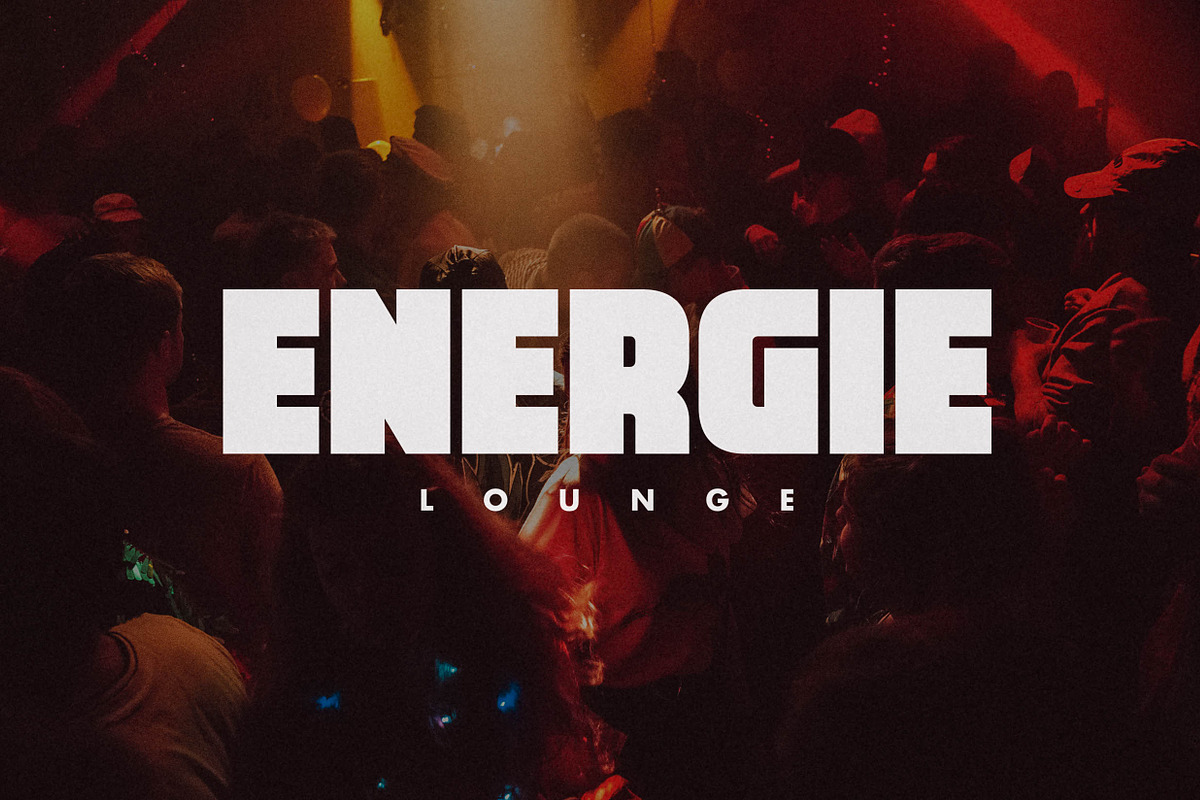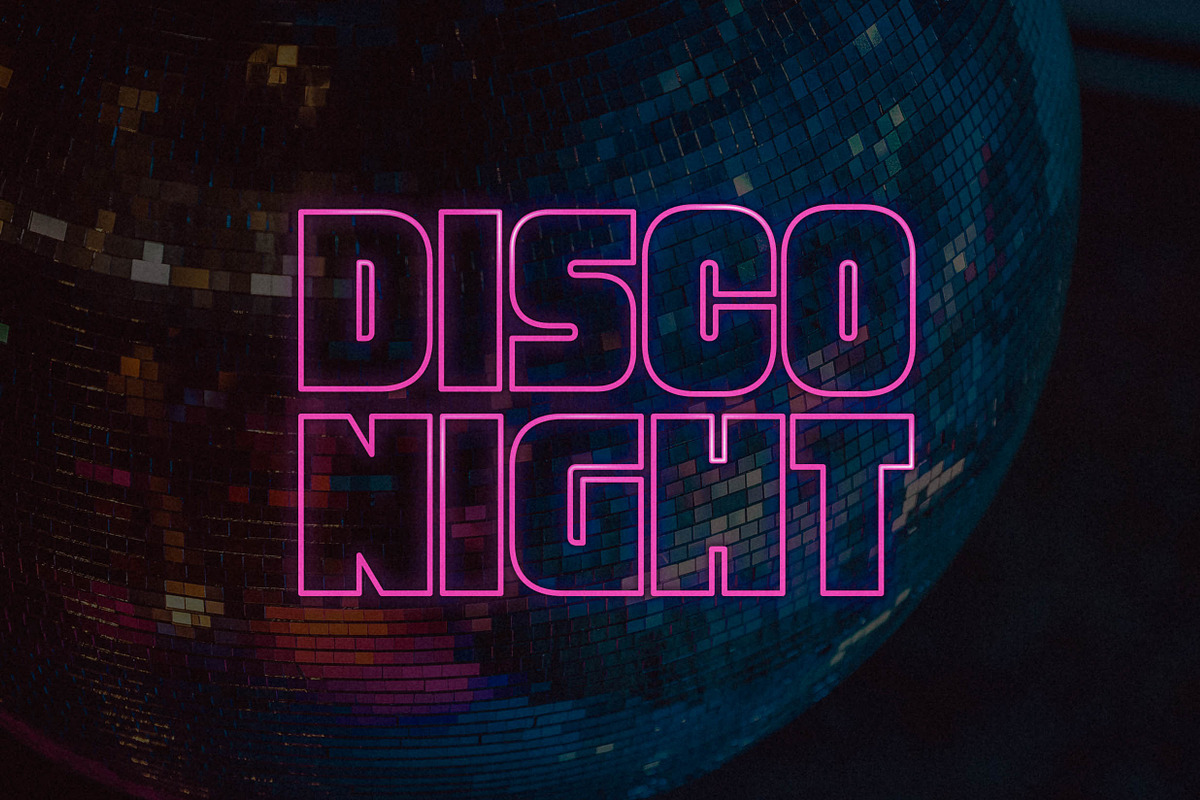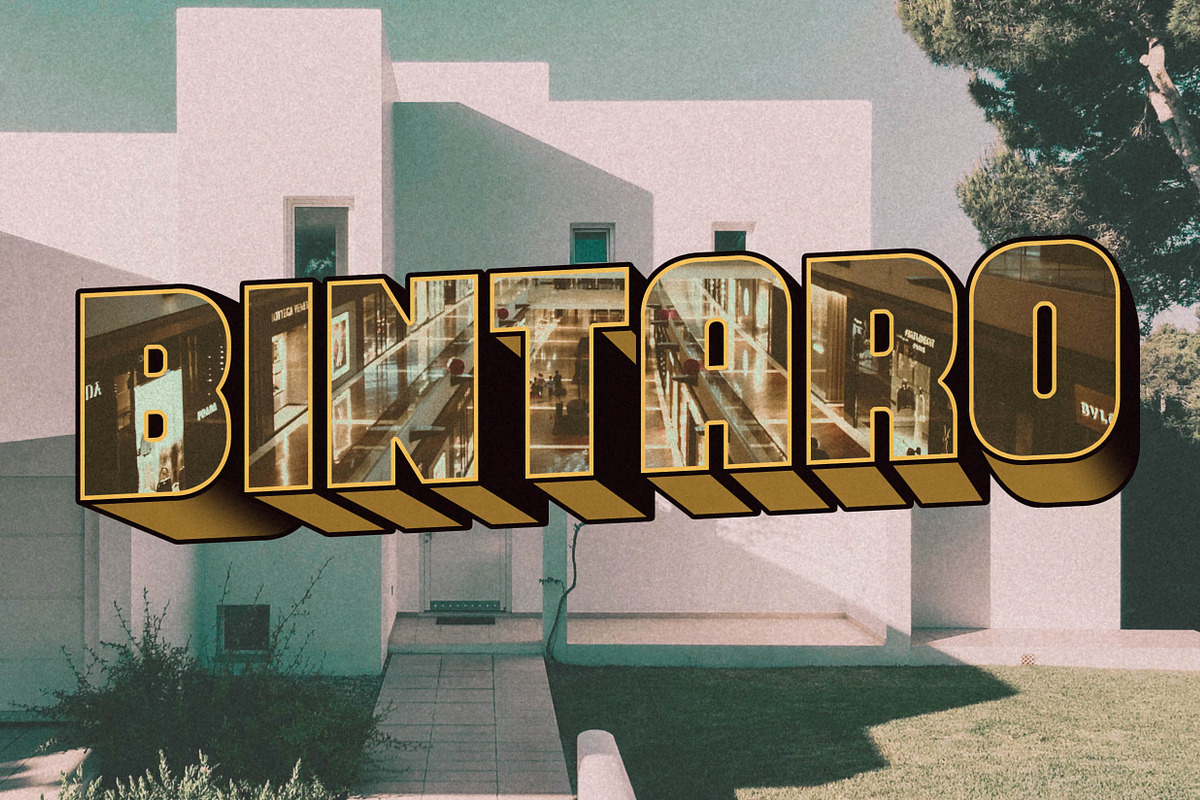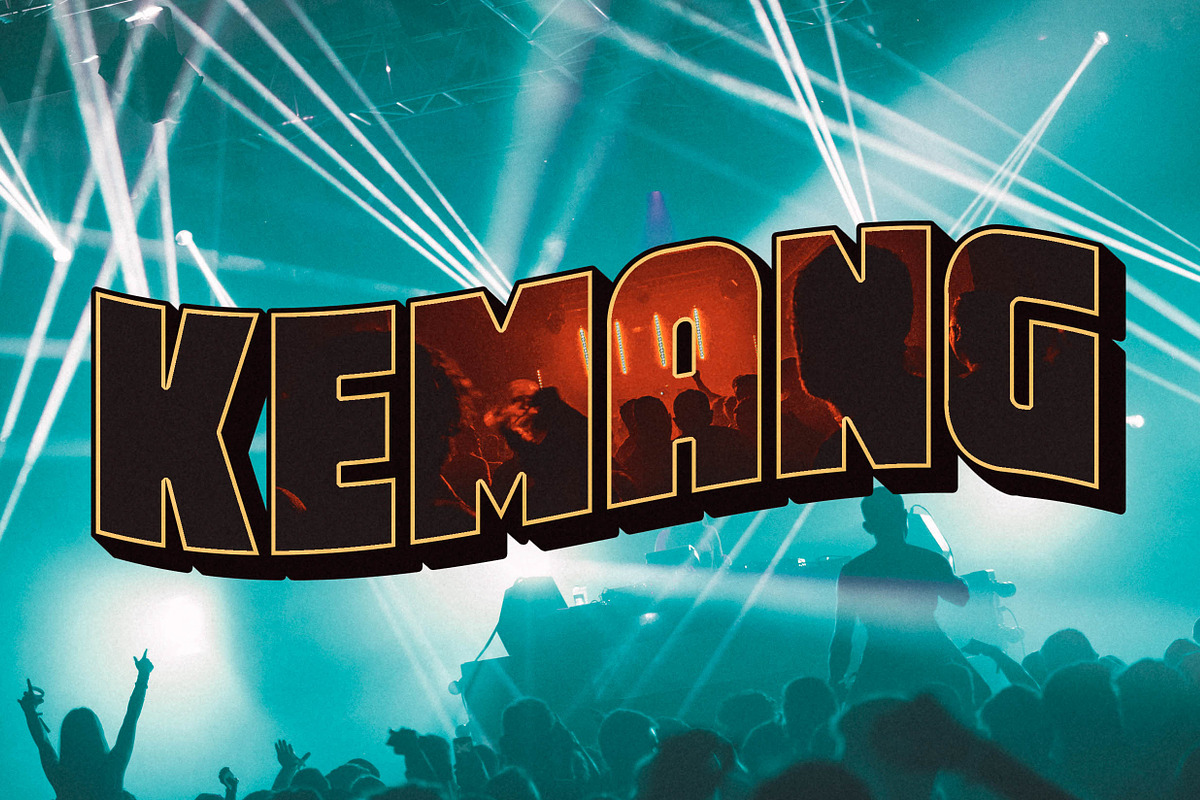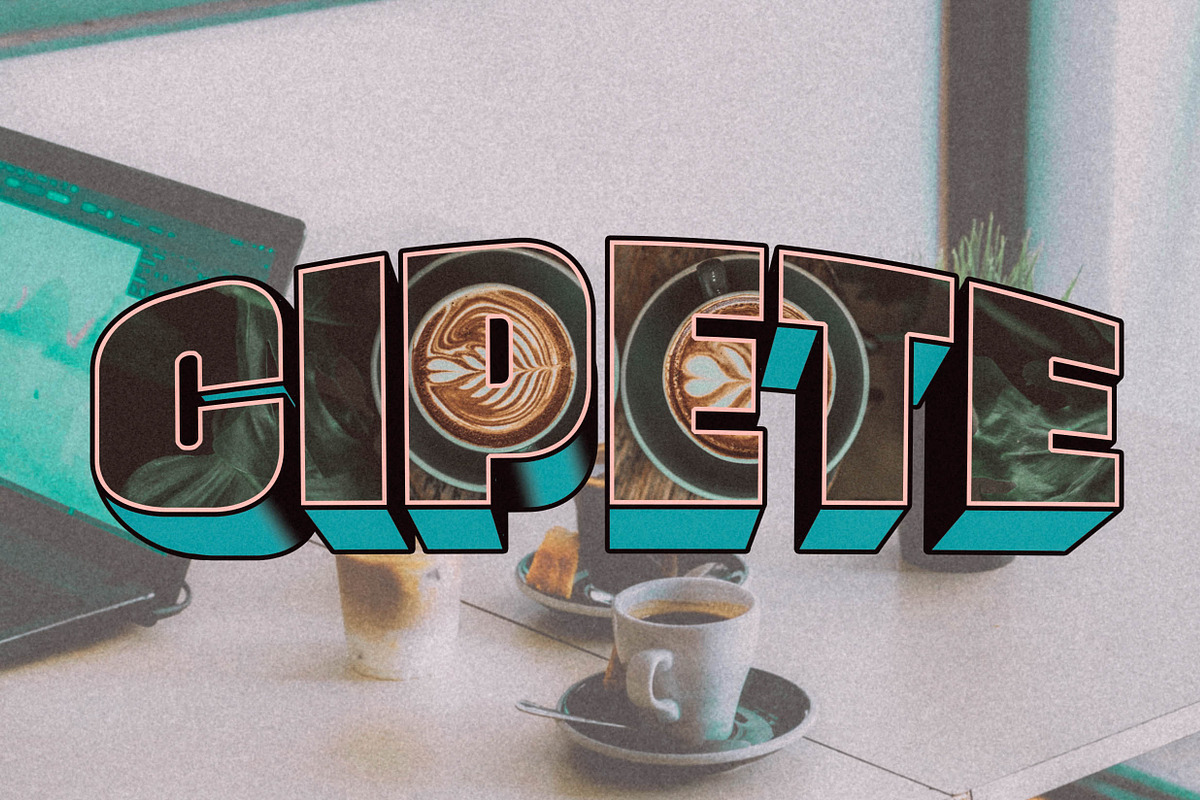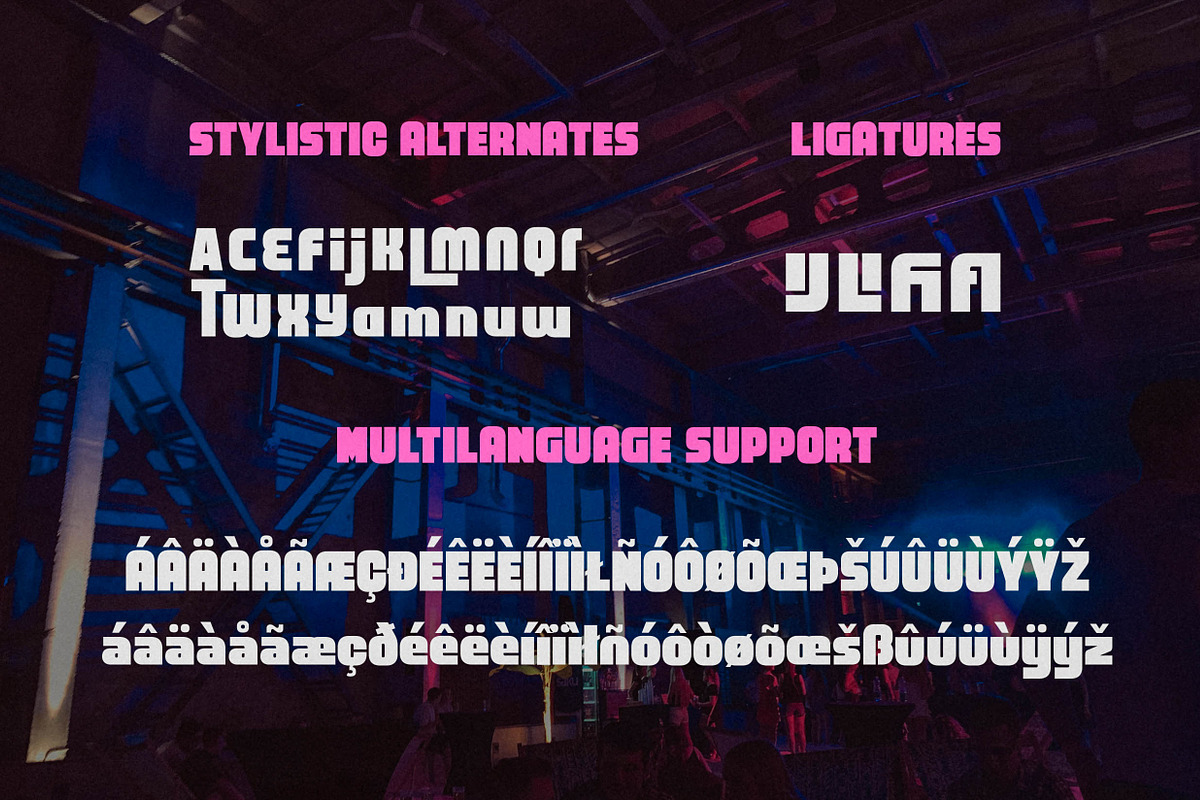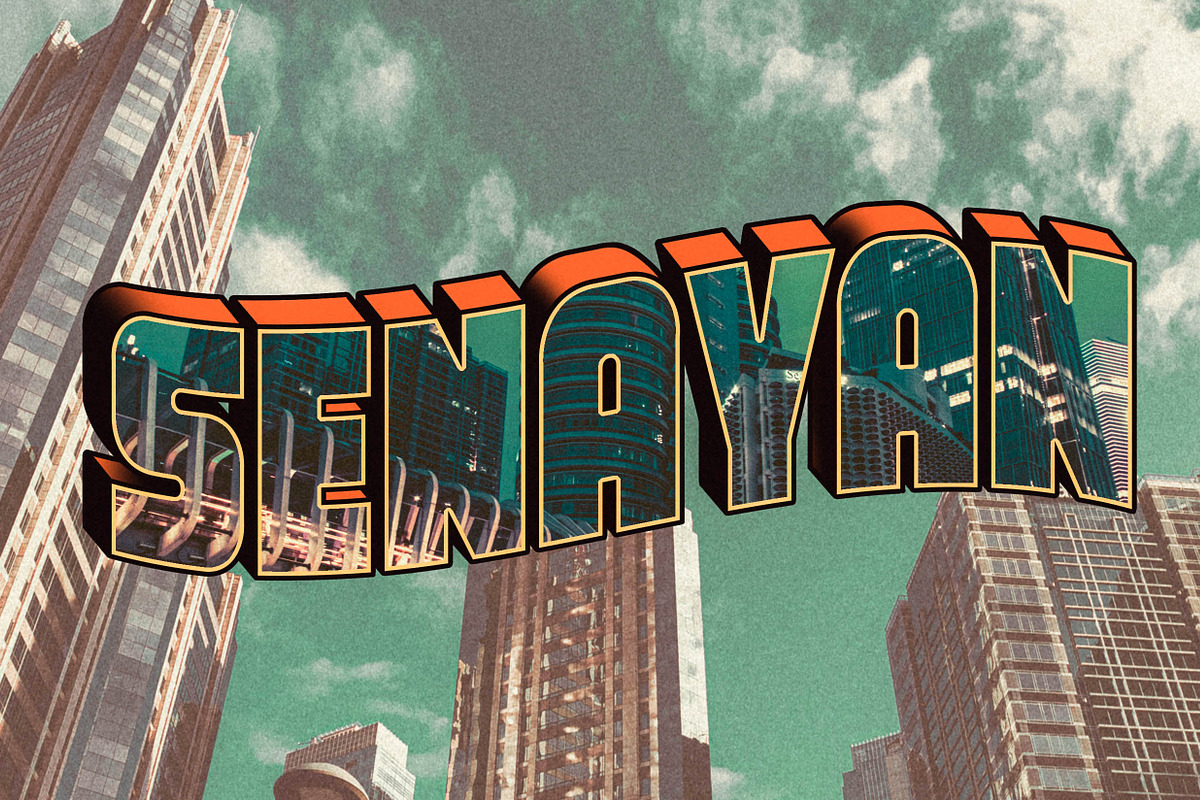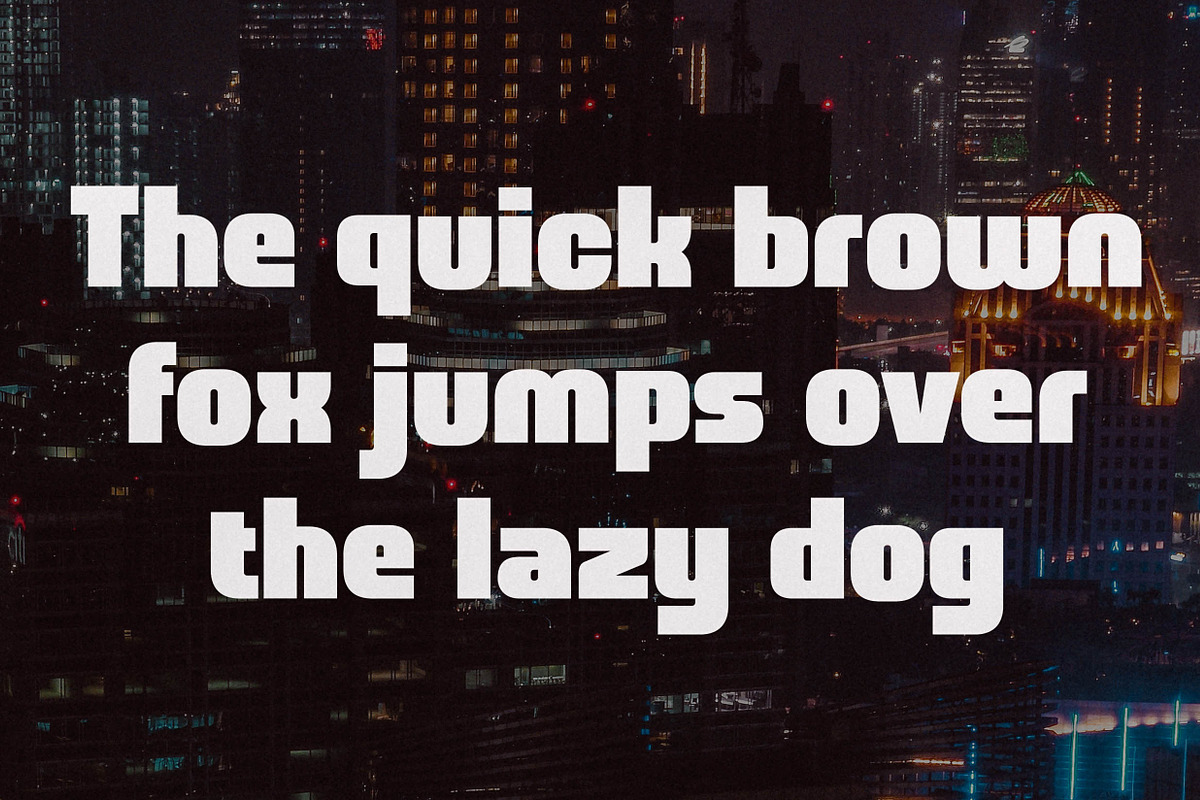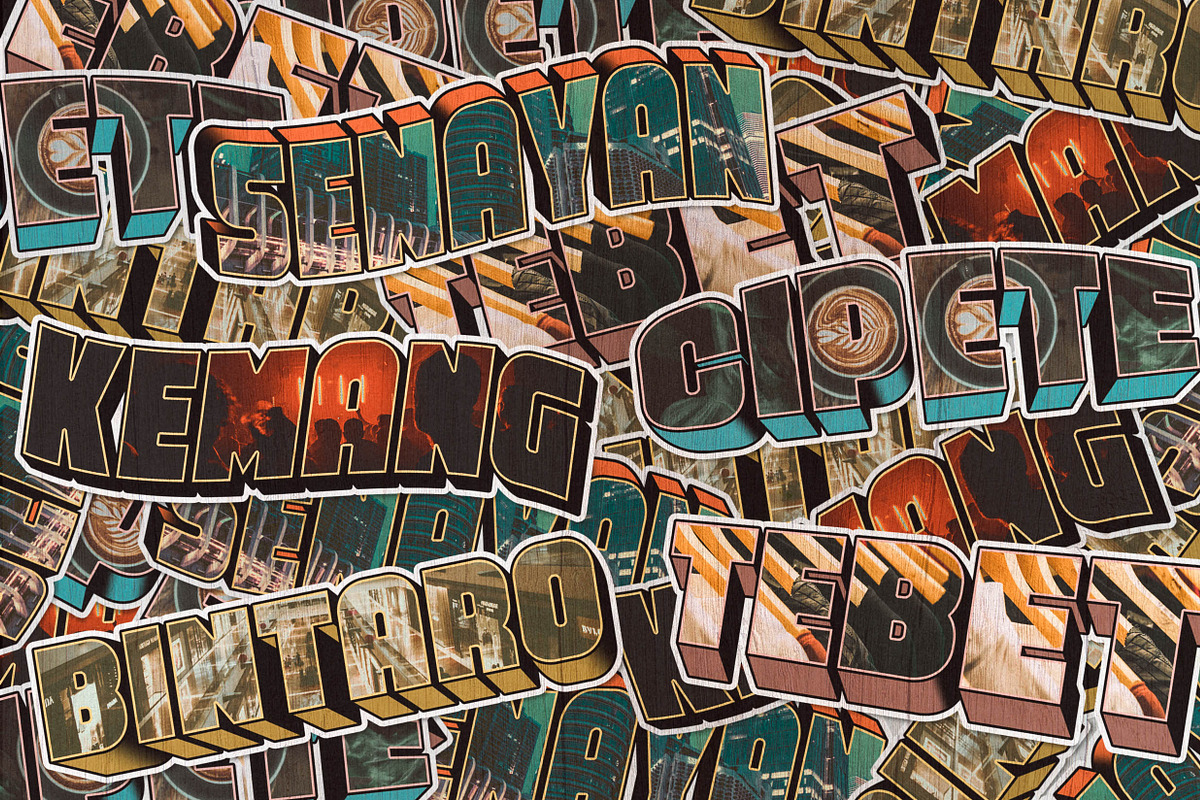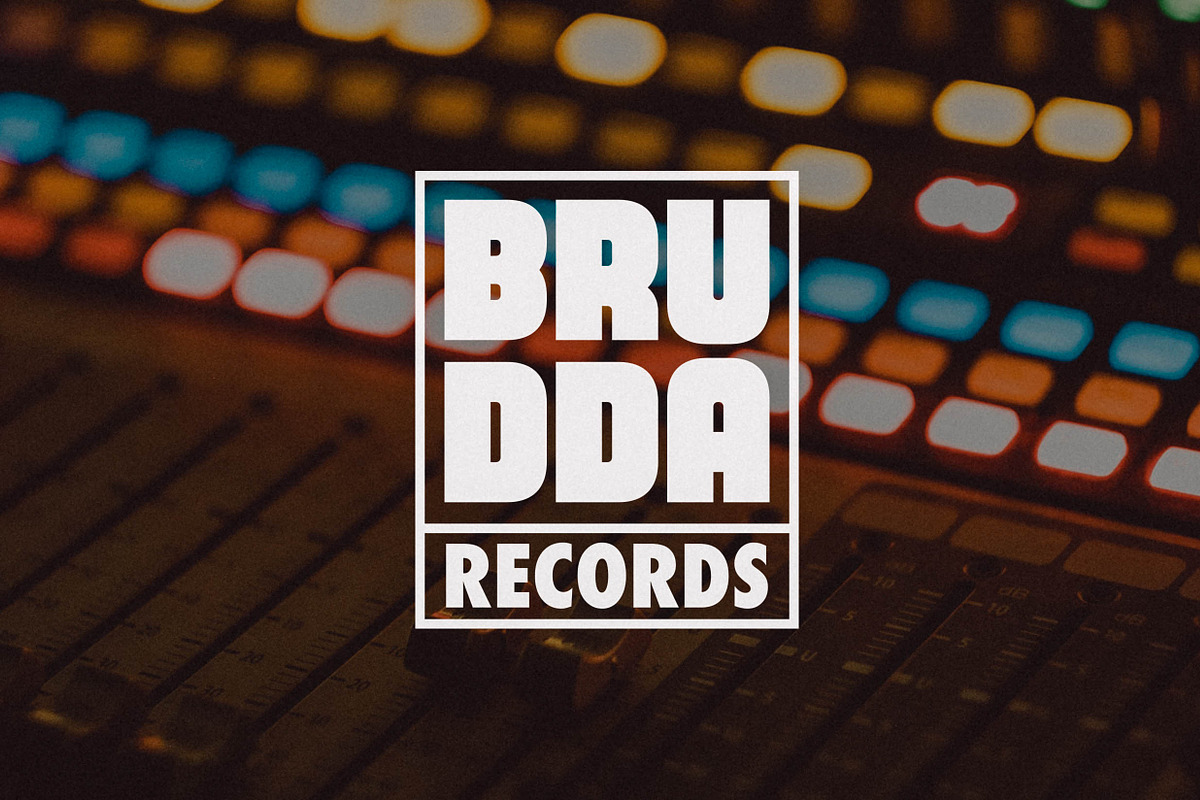
Jaksel - Bold & Square Sans Serif
Inspired by the vintage greeting cards to represent the city in America and Europe. A trending visual concept back in the 80's era make this font brings a lot of classic and retro vibes in every letter of it.
Without any further ado, please welcome, JAKSEL. A bold, strong, display-minded sans-serif font. Represent your branding and visual stronger with the touch of urban vintage instantly right now. Perfectly fit for logo, branding, poster, clothing, merchandise, music project, books, greeting cards, street, and urban culture concept, you name it.
Packed up with Stylistic Alternates and Ligatures to give the "custom vibe" to your design using the same fonts right away.
Language Support: Danish, Dutch, English, Filipino, Finnish, French, Galician, German, Icelandic, Indonesian, Irish, Italian, Norwegian Bokmål, Norwegian Nynorsk, Portuguese, Romansh, Spanish, Swahili, Swedish, Swiss-German, if you doubt with it please type it out in the text box below, i hope it will support your language too :)